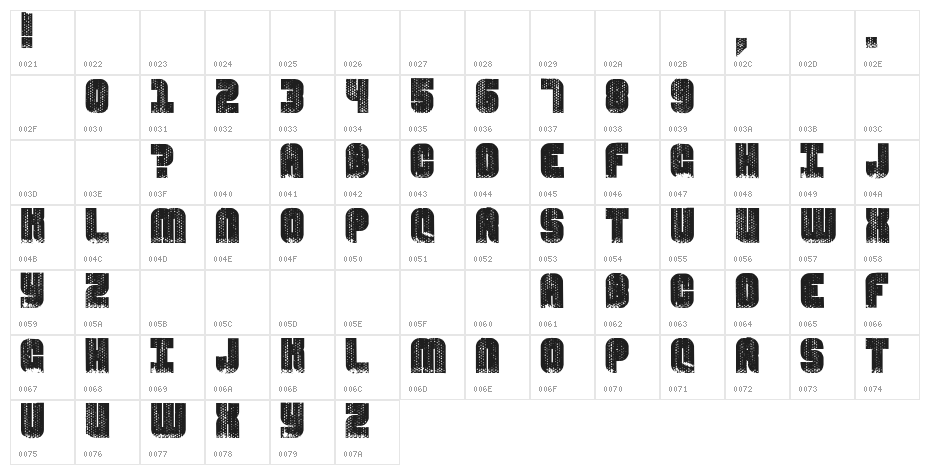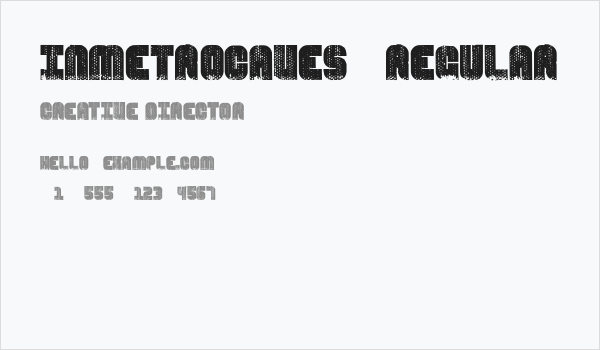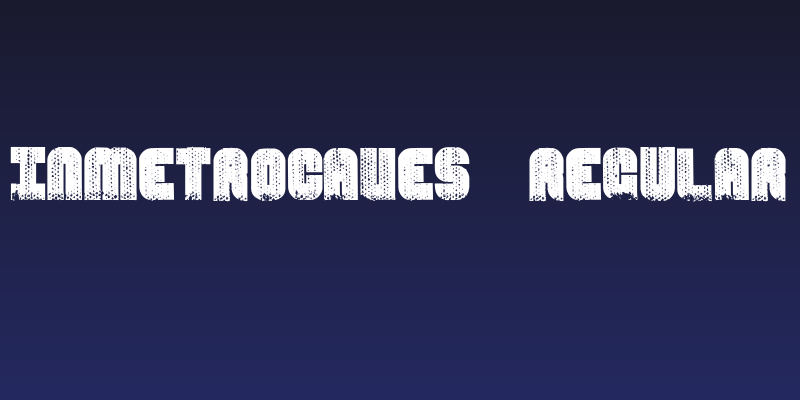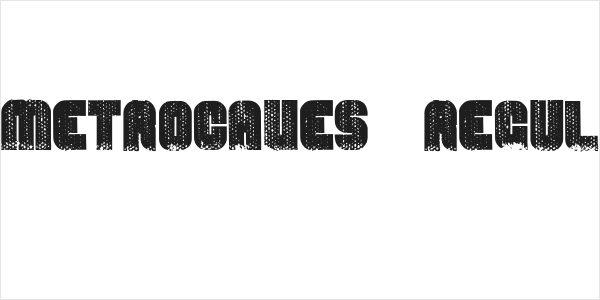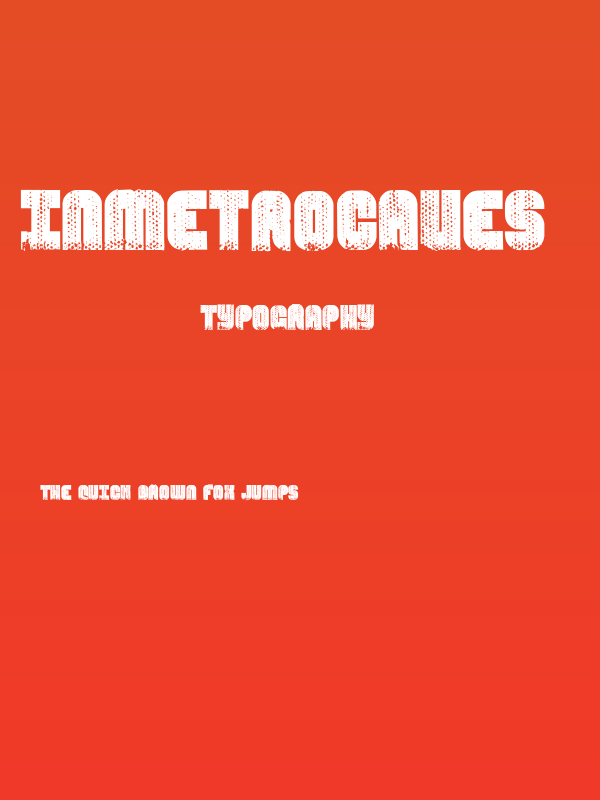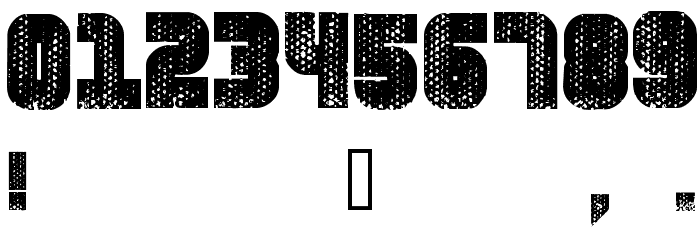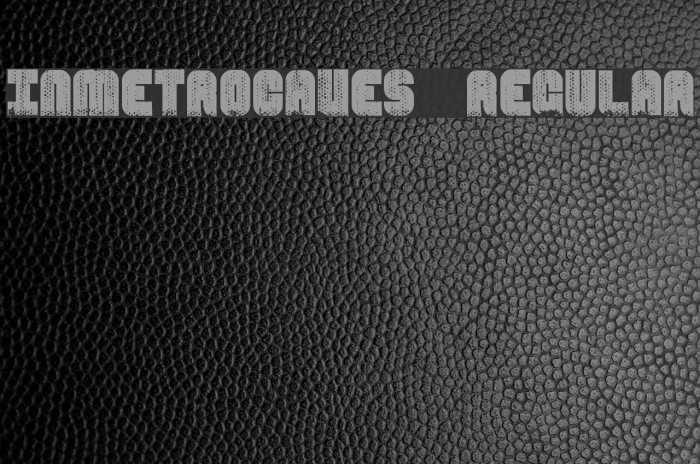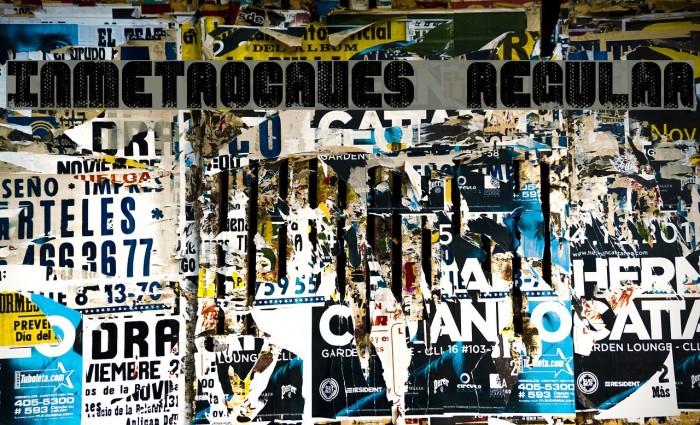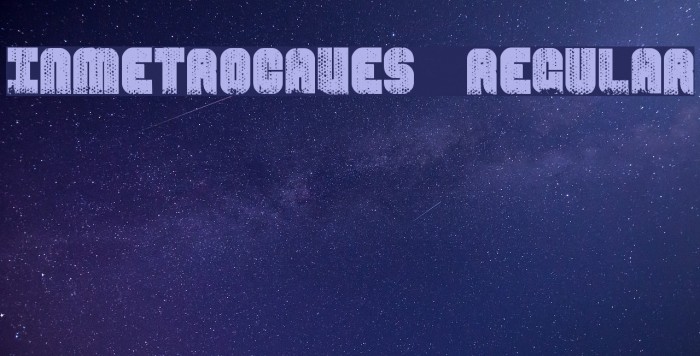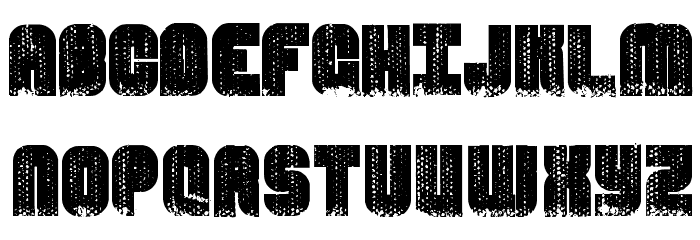
InMetroCaves-Regular Font
InMetroCaves-Regular Description
This font features a bold, decorative style with a unique textured pattern that resembles a distressed or grunge effect. The characters are wide and blocky, with a strong presence that makes them ideal for attention-grabbing designs. The texture within each letter adds a dynamic and edgy feel, making it suitable for modern and urban-themed projects. The uppercase and lowercase letters maintain a consistent style, while the numbers and special characters complement the overall aesthetic. The font's distinct appearance makes it a standout choice for creative and unconventional applications.
| Overall Style | Modern, Edgy |
| Proposed Projects | Ideal for posters, album covers, streetwear branding, and urban-themed graphics. |